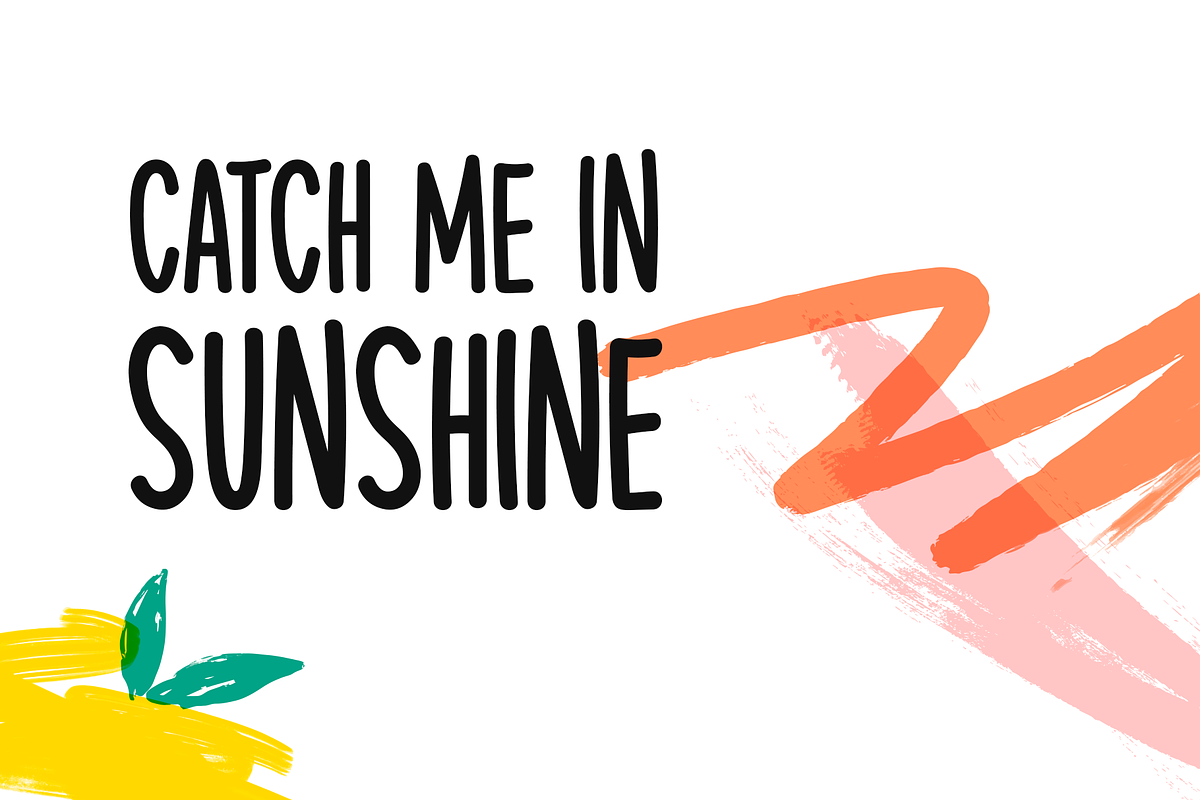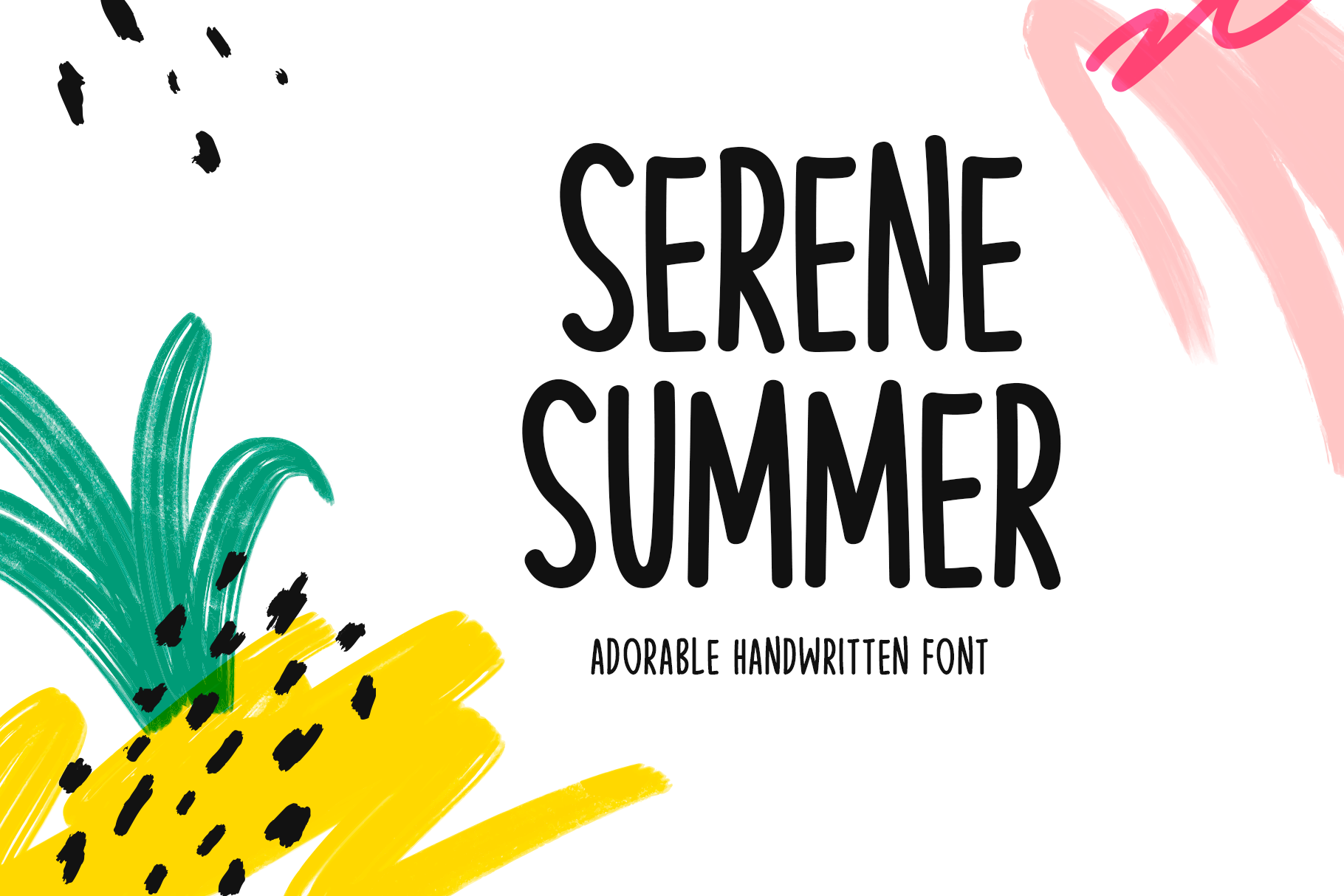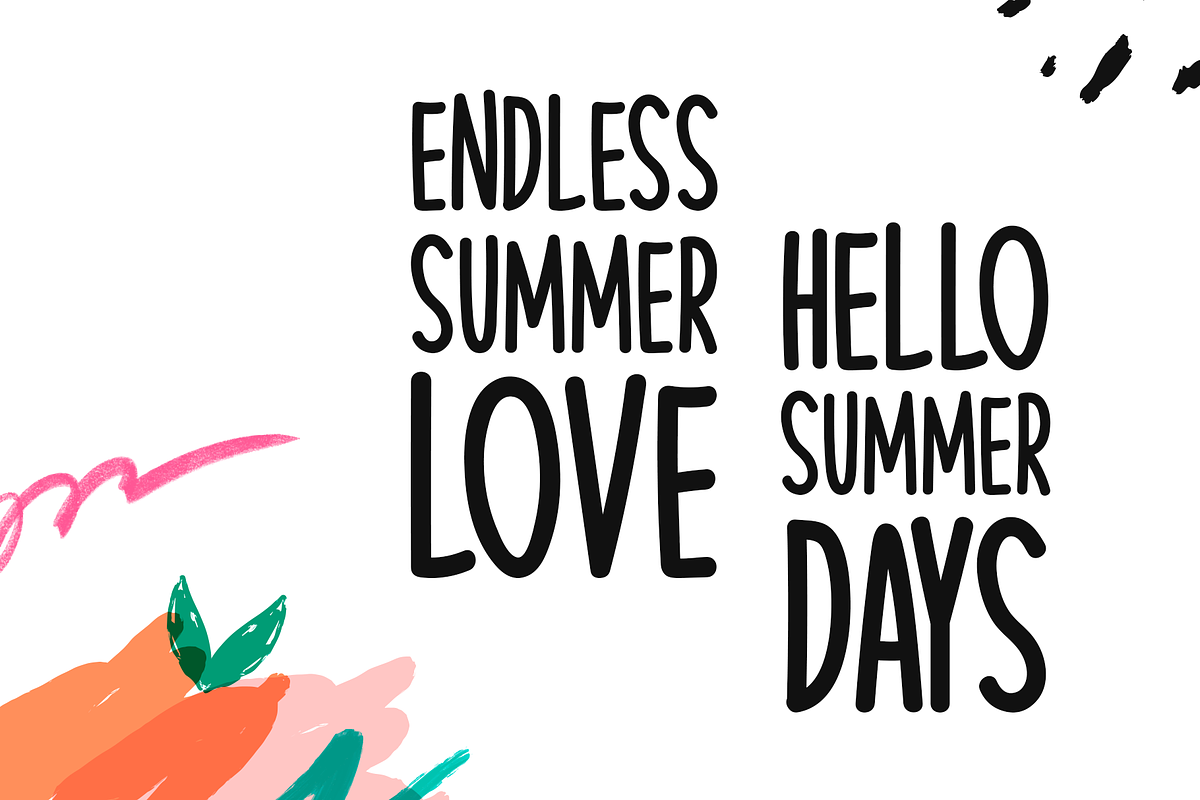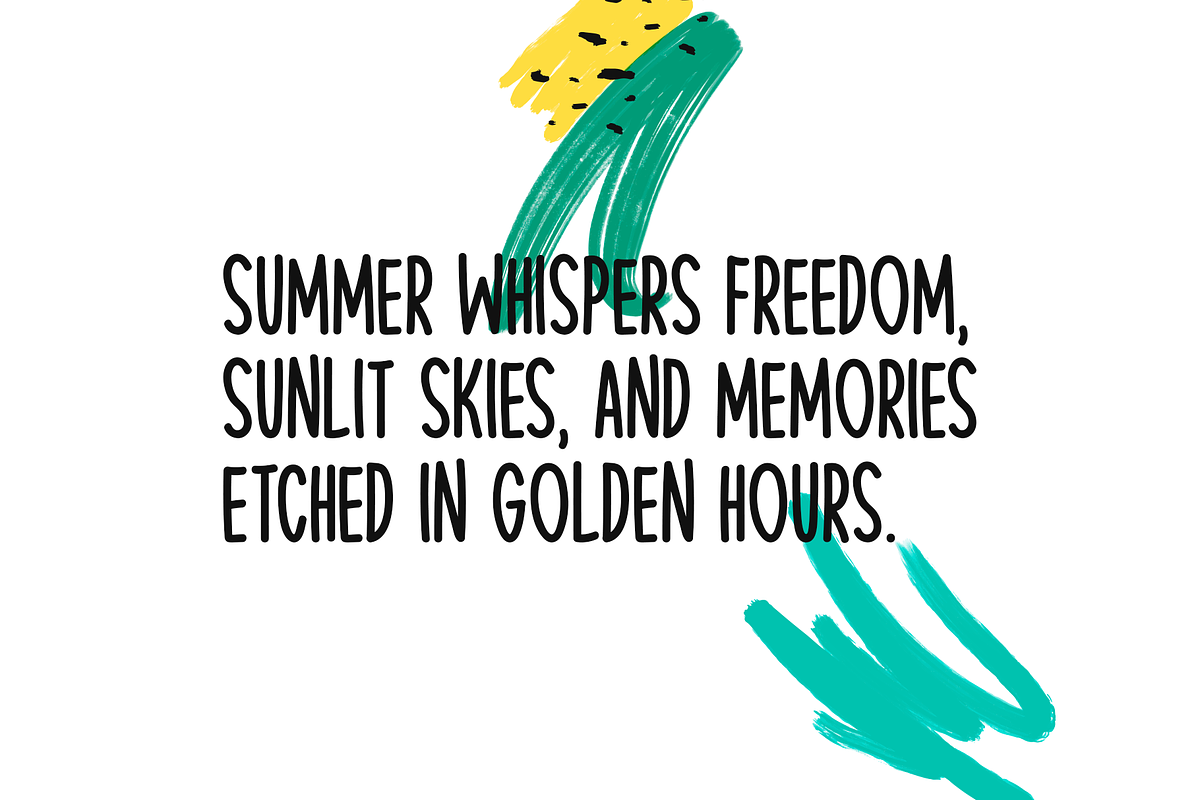
Serene Summer Typeface
Introducing Serene Summer!
Serene Summer is a beautifully crafted handwritten typeface designed to elevate both print and digital creations. Ideal for branding, apparel, promotional materials, and web design, it offers a distinctive elegance that enhances every project.